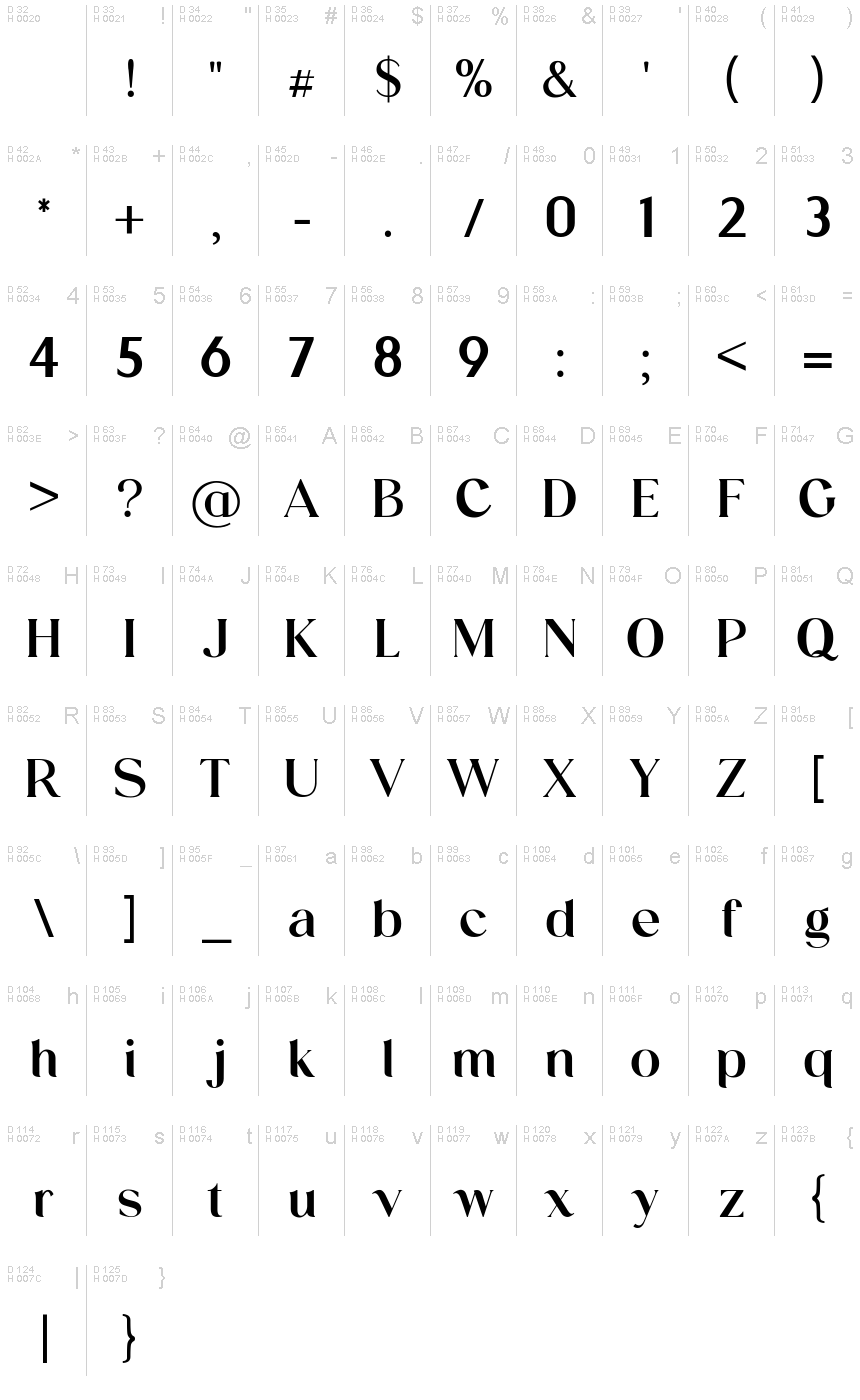
VoiganteDisplay
Voigante Display, crafted by UI Creative, is a serif font that exudes sophistication and elegance. Its graceful, flowing lines and sharp serifs create a striking balance between classic and contemporary design elements.
The font's refined curves and bold presence make it perfect for high-impact headlines, luxury branding, editorial layouts, and elegant invitations. Voigante Display’s unique character ensures that it stands out in any design context where refined aesthetics are paramount. Whether used in print or digital media, this font brings an air of distinction and timeless beauty to your projects.